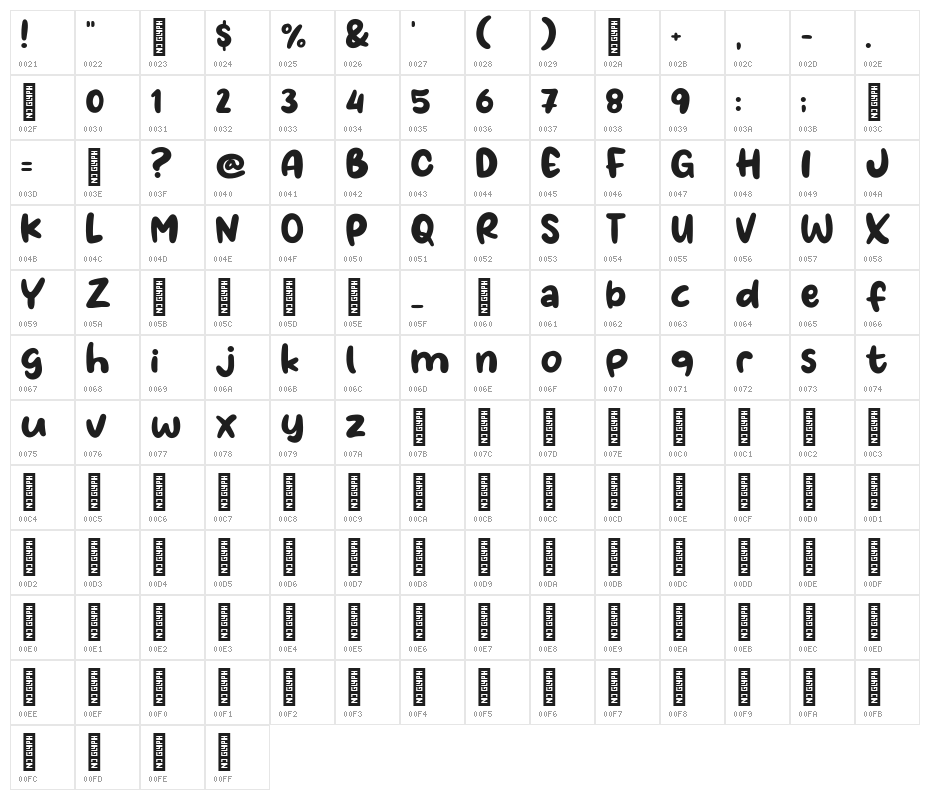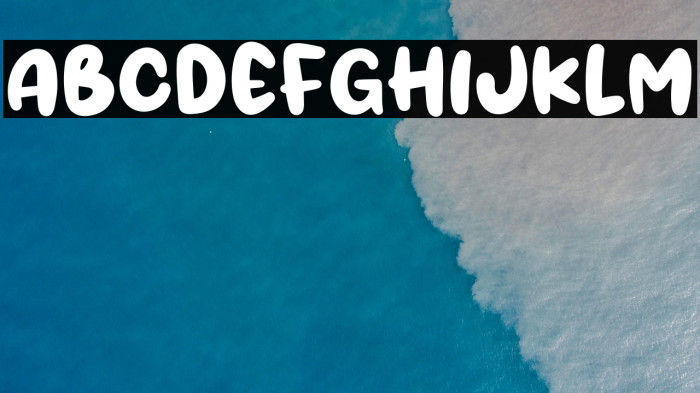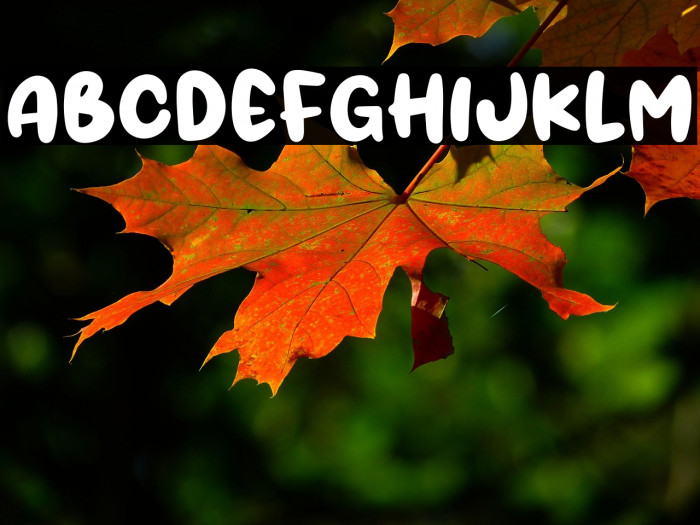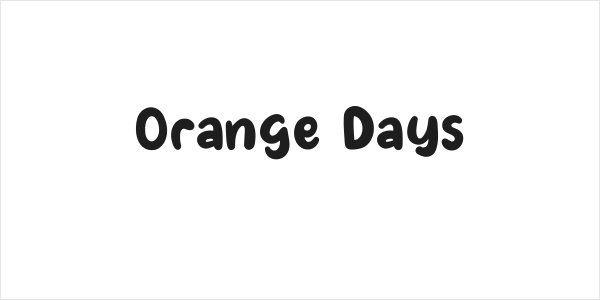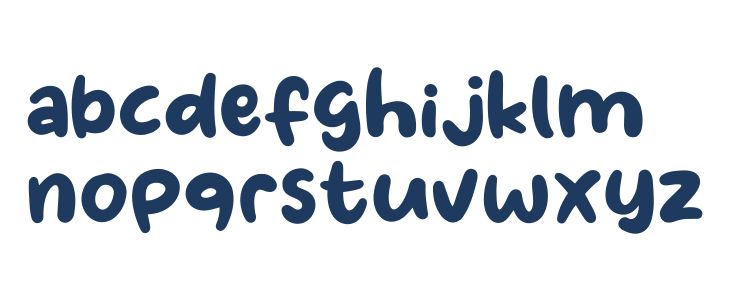
Orange Days Font
Orange Days Description
This playful and bold font features rounded, thick strokes that give it a friendly and approachable appearance. The characters are slightly irregular, adding a whimsical touch that makes it stand out. The uppercase and lowercase letters maintain a consistent style, with the lowercase letters being slightly smaller but equally bold. The numbers are robust and follow the same rounded style, ensuring readability. Special characters are included, maintaining the same playful aesthetic. This font is perfect for projects that require a fun and informal vibe.
| Overall Style | Playful, Whimsical |
| Proposed Projects | Ideal for children's books, playful branding, casual invitations, and creative posters. |